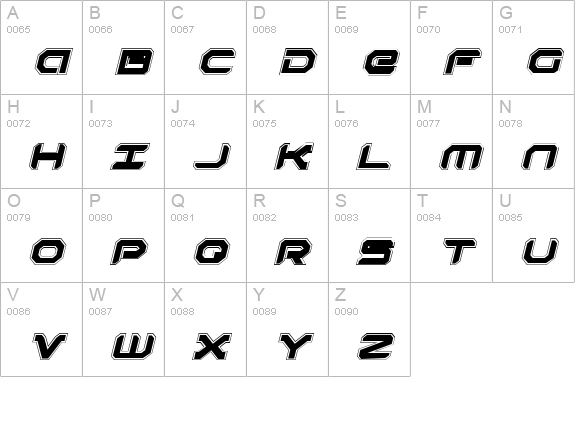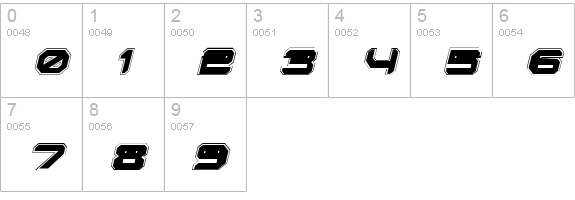
Robotaur Academy Italic Font Details
Robotaur Academy Italic is a distinctive, italic variant in the Robotaur typeface family \xE2\x80\x94 well suited to design and typography projects.
Robotaur Academy Italic is a sleek and modern font that exudes elegance and sophistication. With its unique italic style, this font is perfect for adding a touch of class to any design project. Whether you're working on a poster, flyer, or website, Robotaur Academy Italic will make your text stand out with its sharp angles and clean lines. The best part? Robotaur Academy Italic is available for free download at FontsMarket.com. That's right, you can enhance your designs with this stunning font at no cost at all. So why wait? Upgrade your typography game today with Robotaur Academy Italic and elevate your projects to the next level.